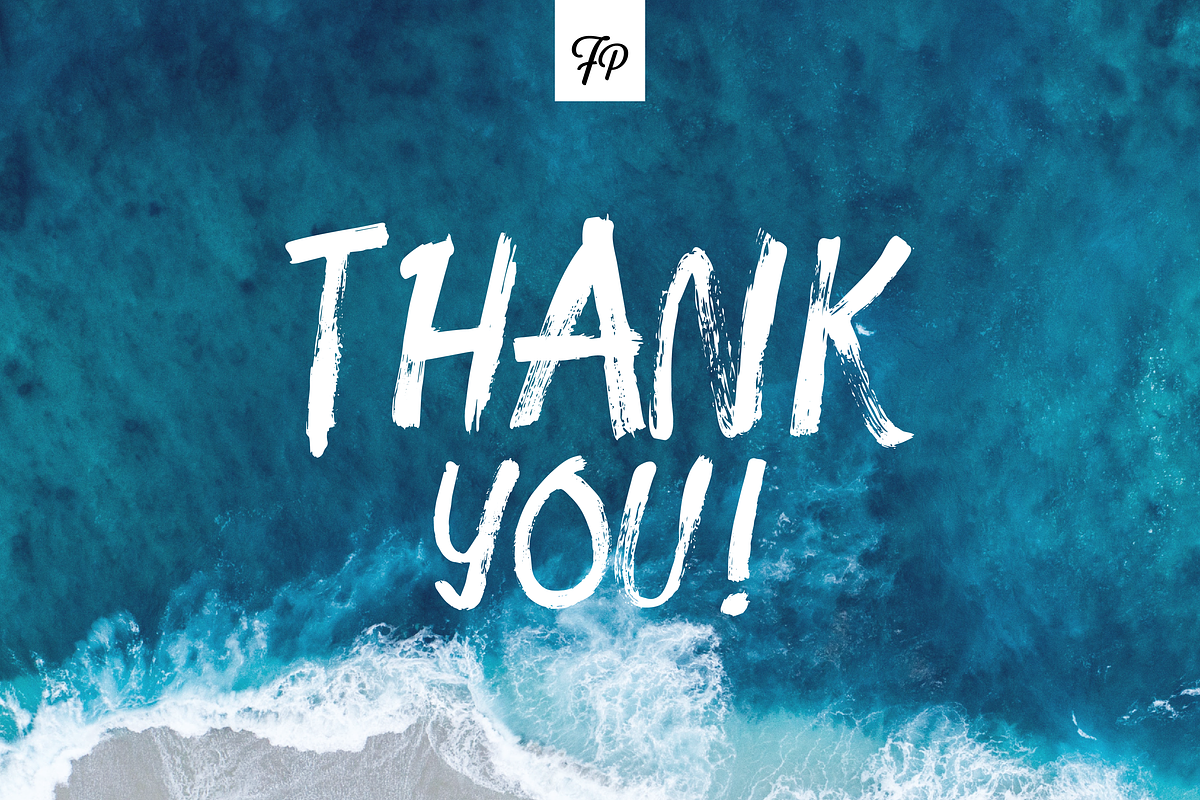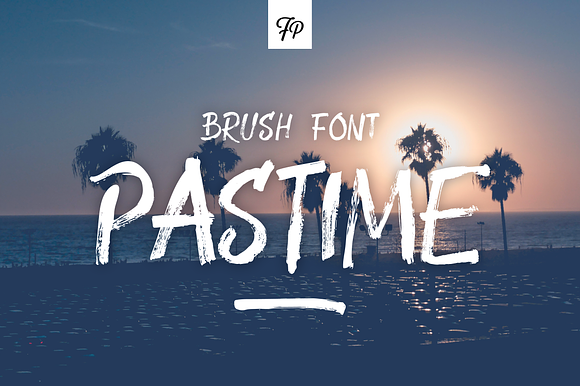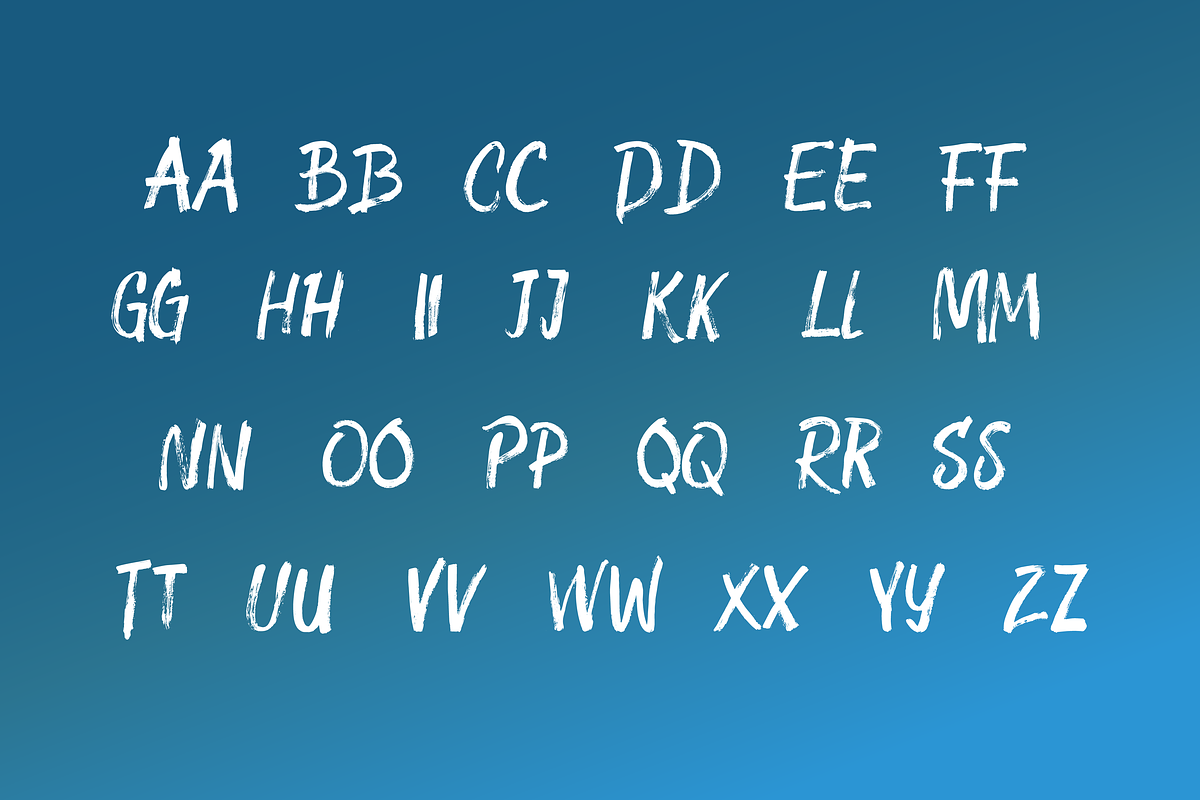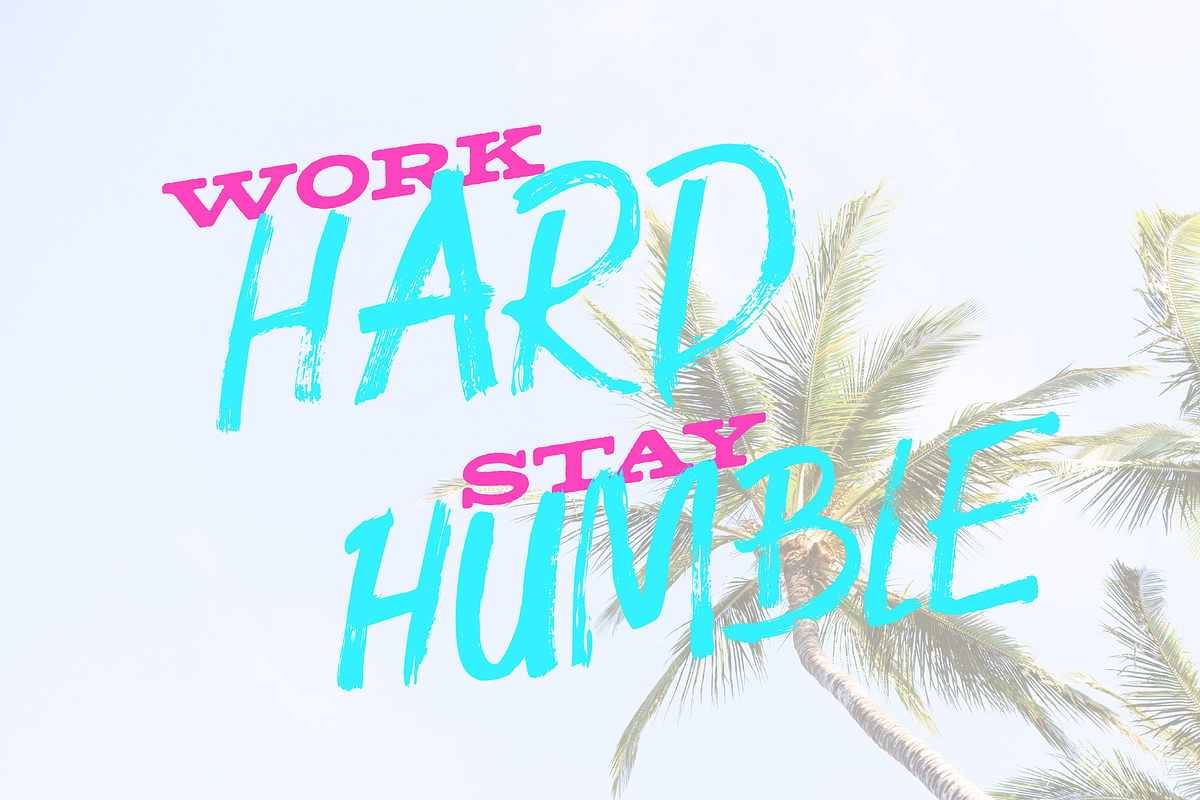
Pastime Brush Font
Introducing Pastime, the first brush font from Fresh Pressed Fonts!
Pastime was created by hand with acrylic paint on artist's paper. In this font there are two versions for each glyph in the alphabet so you can mix and match as you see fit. Additionally you'll find all standard glyphs you would expect in a font including numbers, symbols and more.